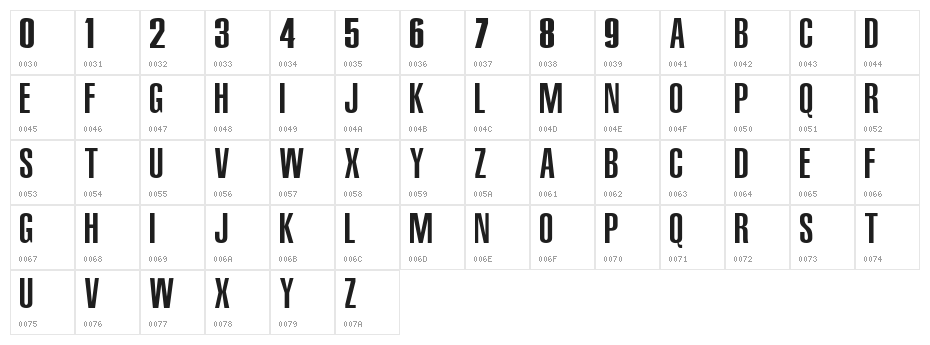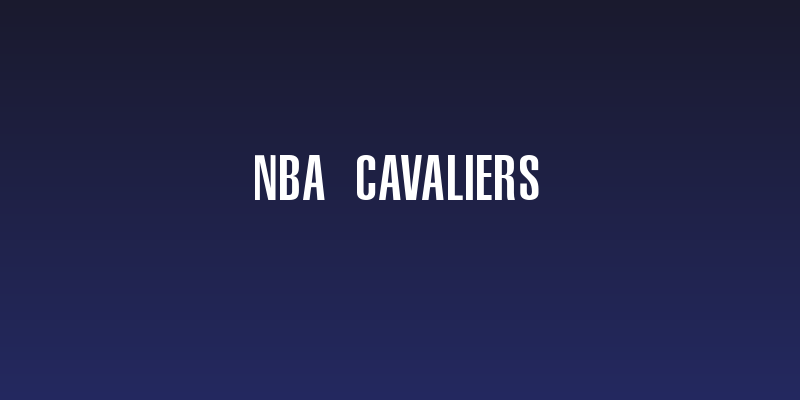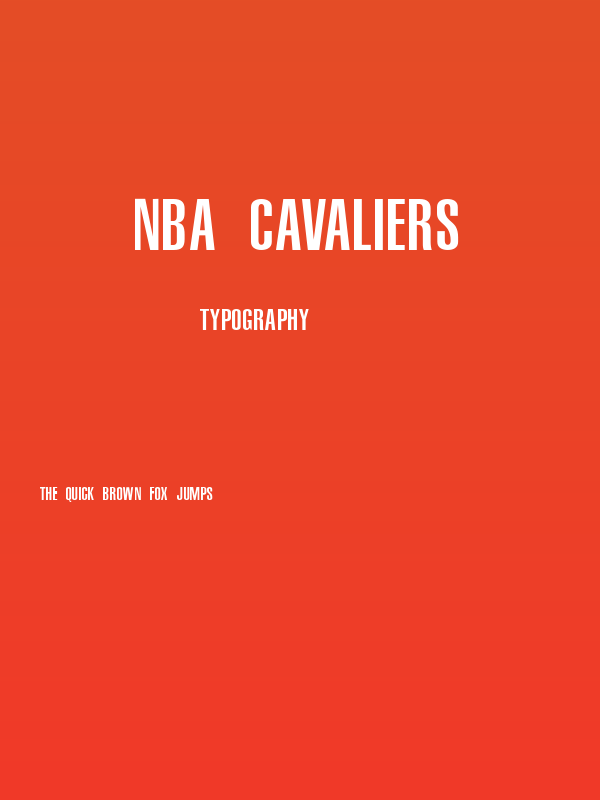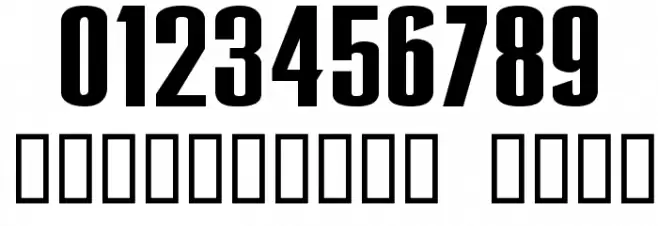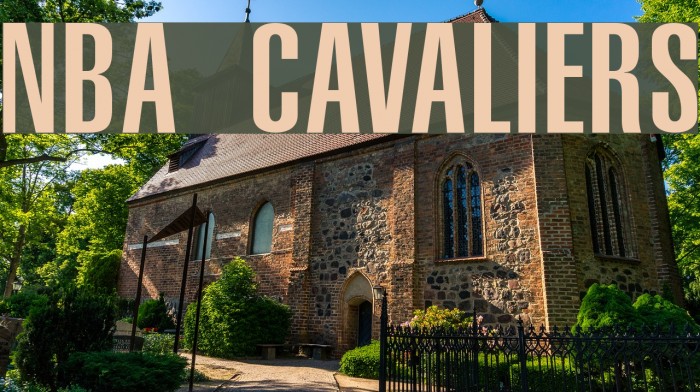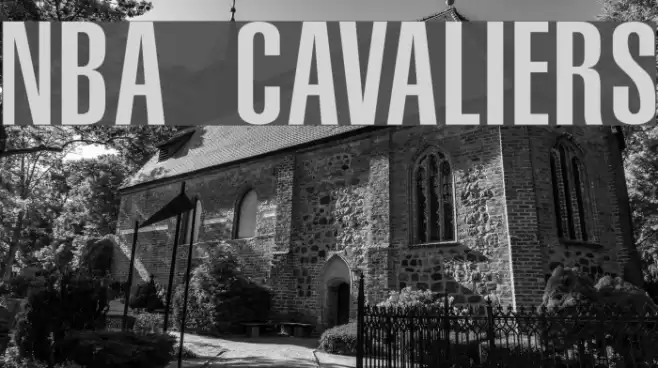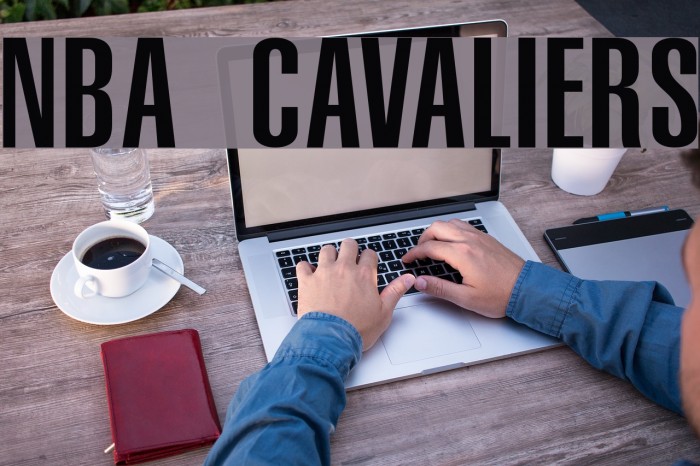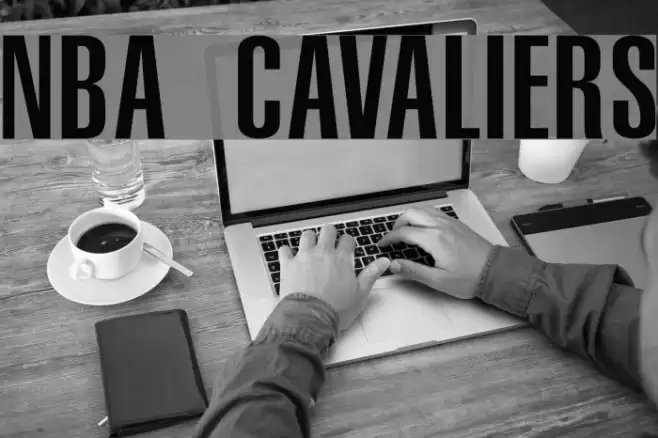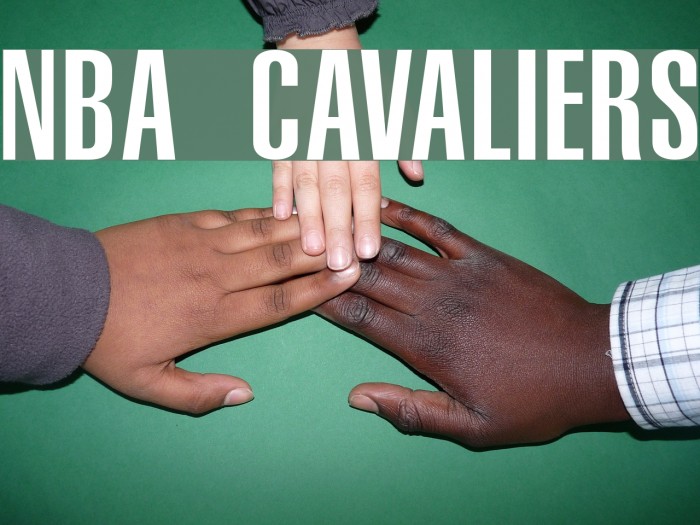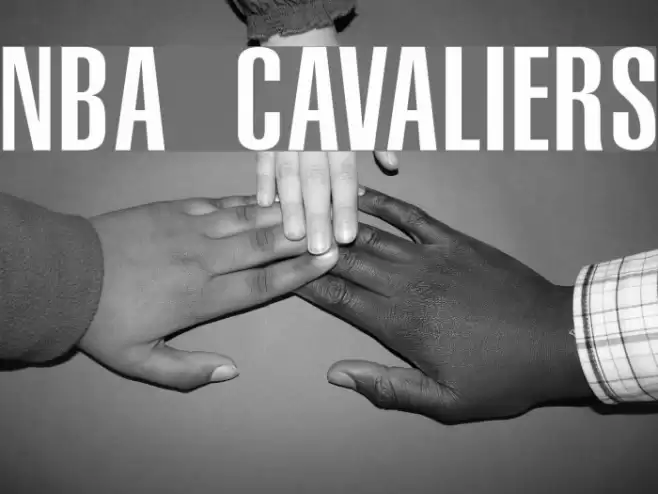
NBA Cavaliers Font
NBA Cavaliers Description
This font exhibits a bold and impactful design, characterized by its tall and narrow letterforms. The uppercase letters are prominent and commanding, making it ideal for attention-grabbing headlines. The numbers are equally bold, ensuring consistency across different uses. The absence of lowercase letters suggests a focus on strong, uppercase typography. The overall style is modern and assertive, suitable for sports branding or any project requiring a powerful visual presence.
| Proposed Projects | Ideal for sports branding, headlines, posters, and any design needing a strong, impactful typeface. |